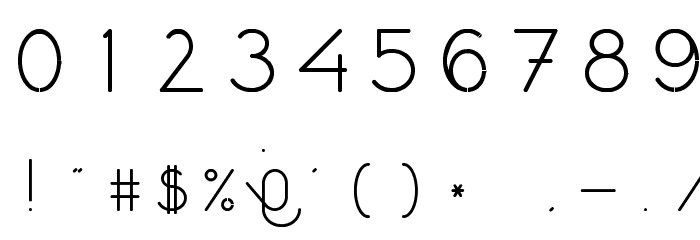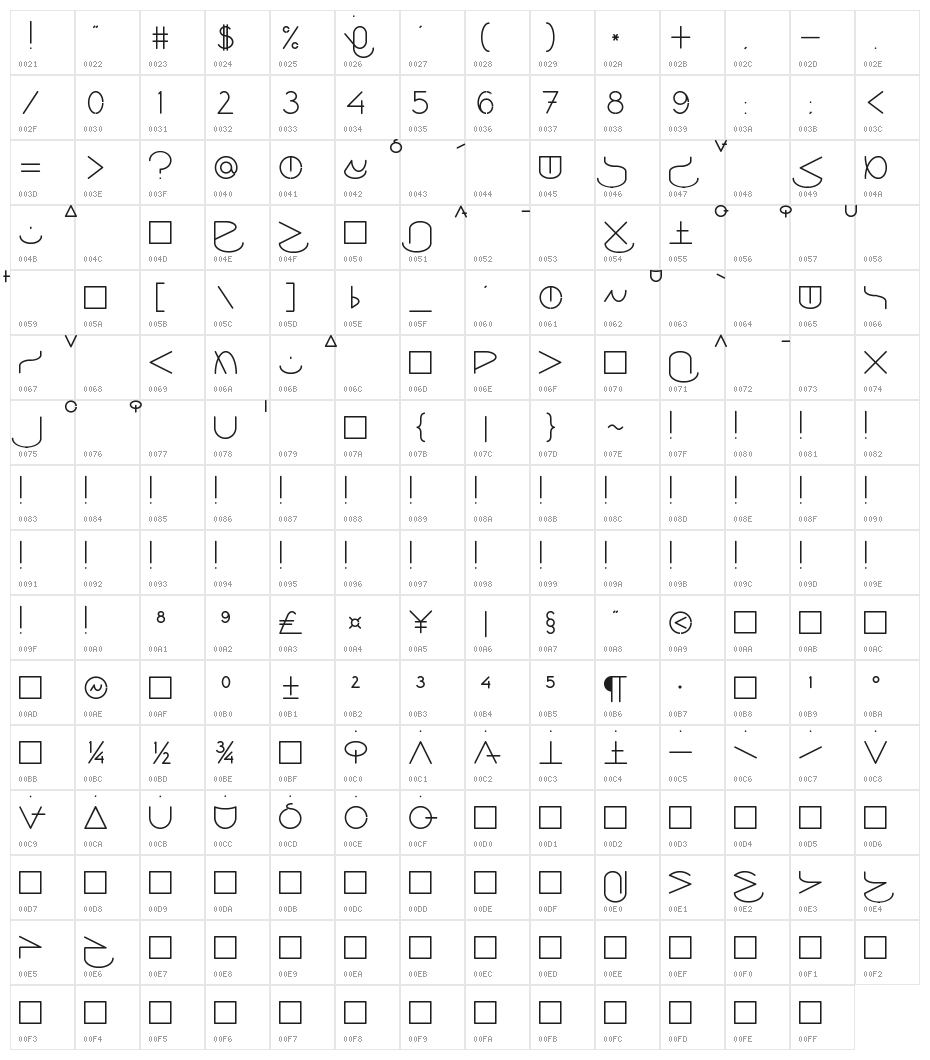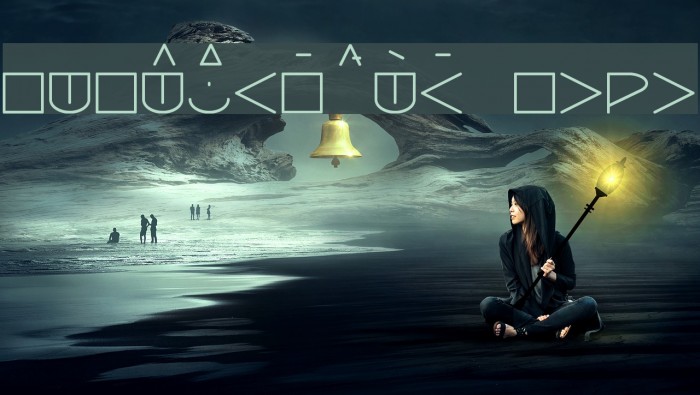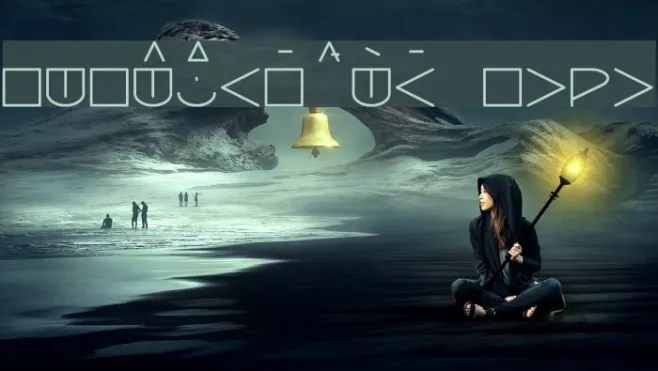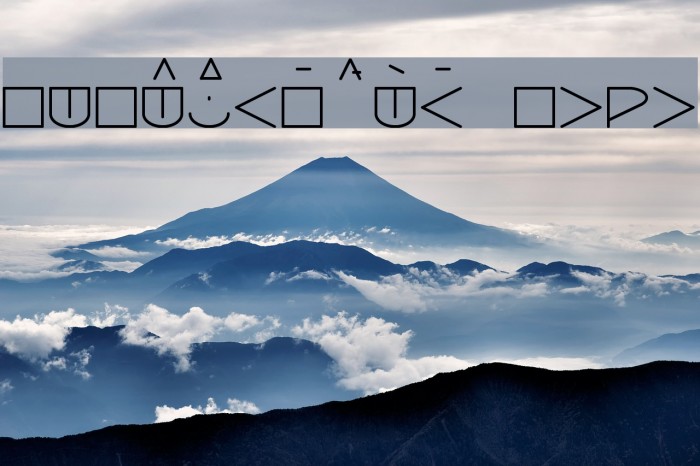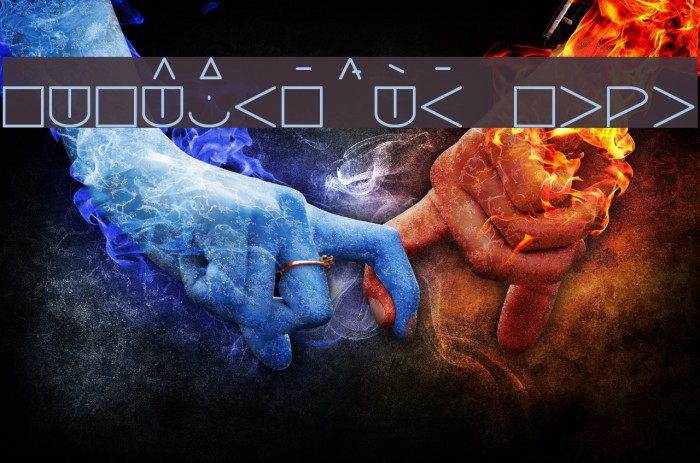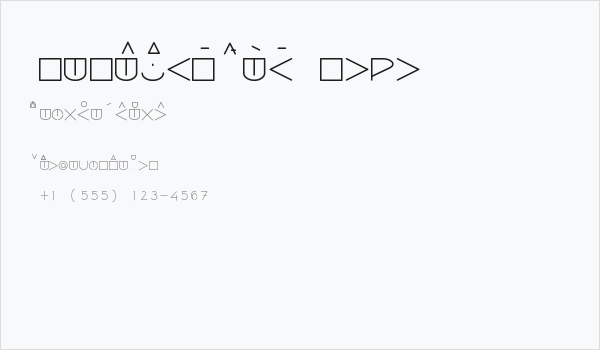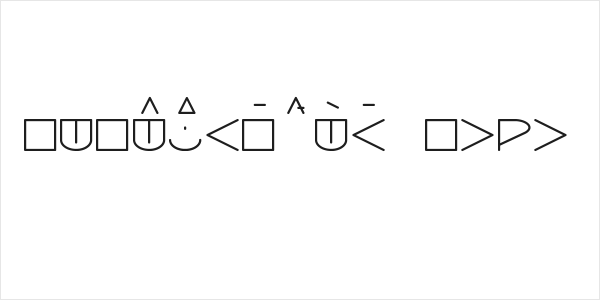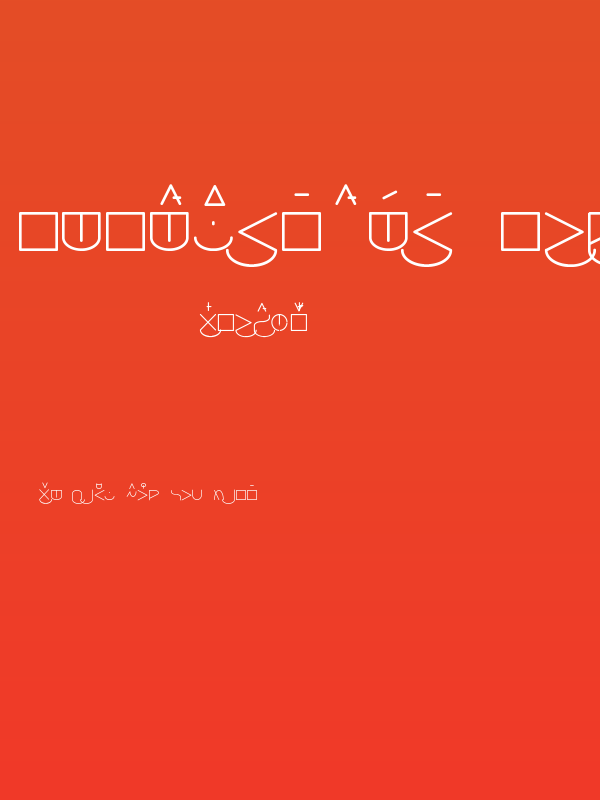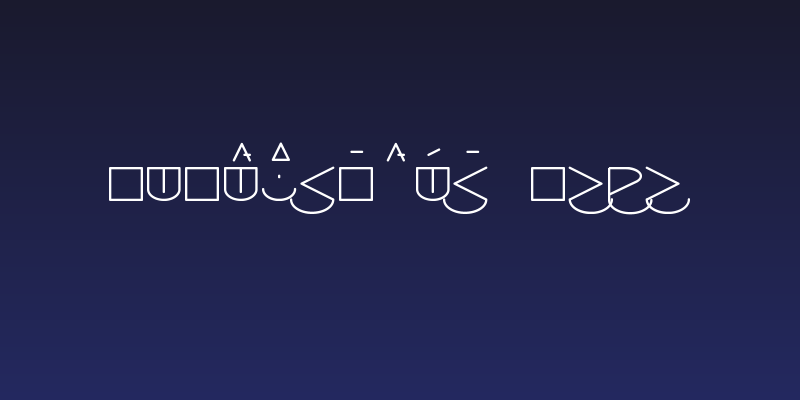
Peperklips Redis Mono Font
Peperklips Redis Mono Description
This font features a highly abstract and geometric design, with characters composed of simple shapes like circles, triangles, and lines. The glyphs are unconventional and artistic, resembling symbols more than traditional letters and numbers. The style is minimalistic, with a focus on clean lines and open spaces, creating a modern and avant-garde appearance. The font is likely intended for decorative purposes, given its unique and non-standard character set, which may not be suitable for body text or readability-focused applications.
| Use Case | Logos, Decorative elements |
| Proposed Projects | Ideal for artistic projects, modern art installations, abstract design themes, or as decorative elements in graphic design. |